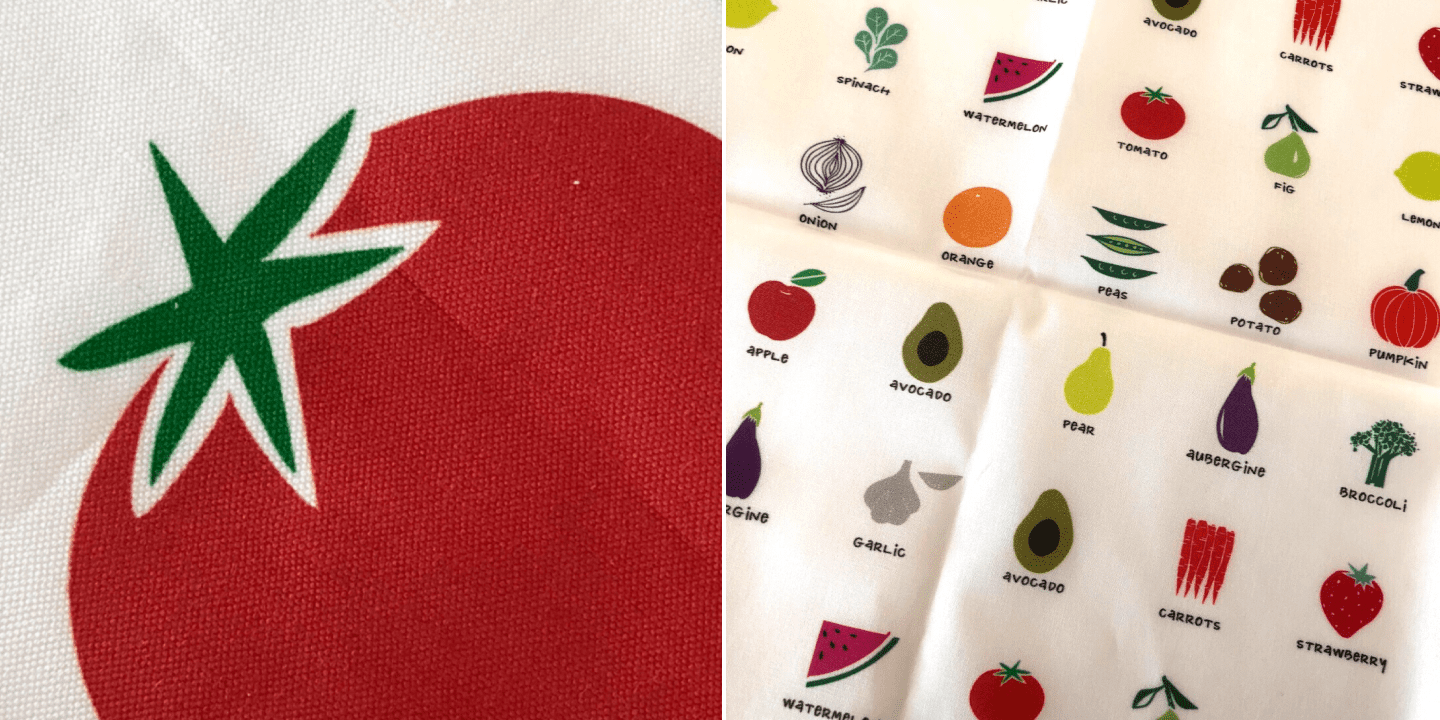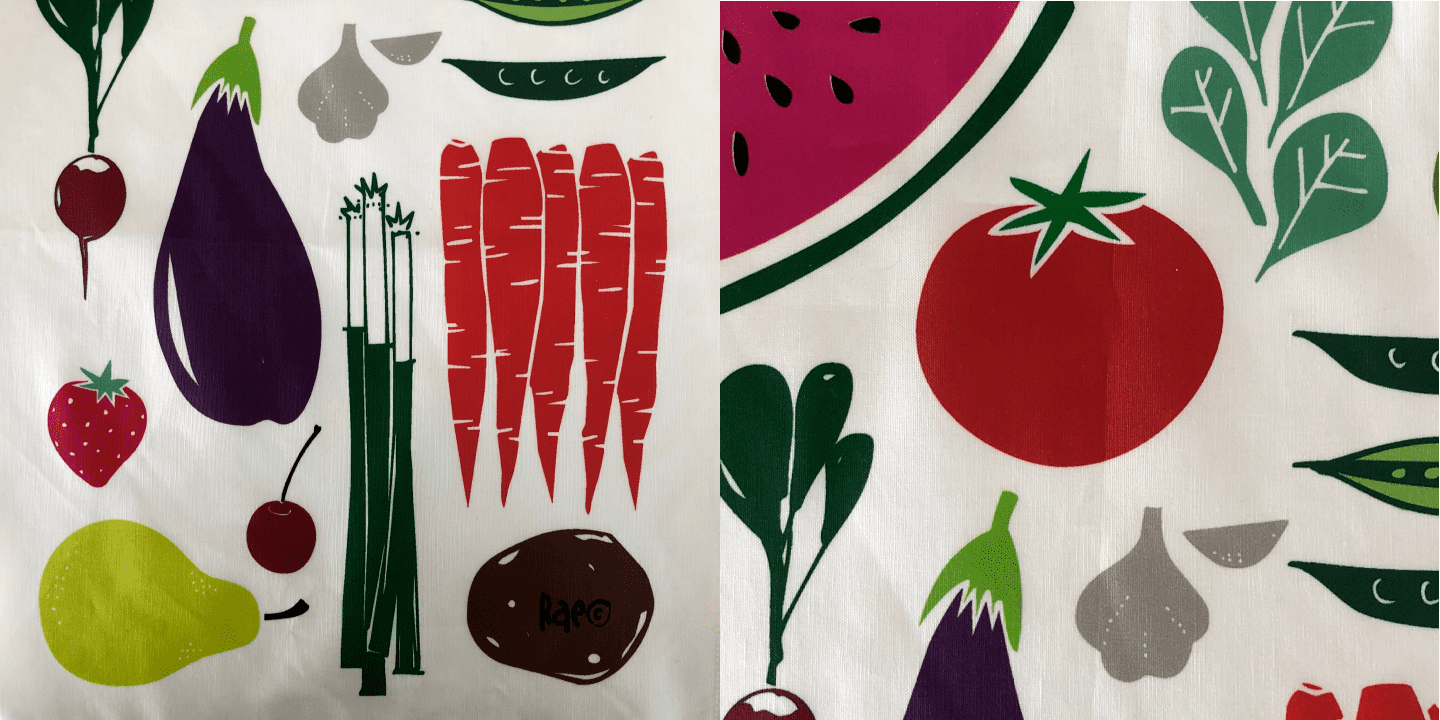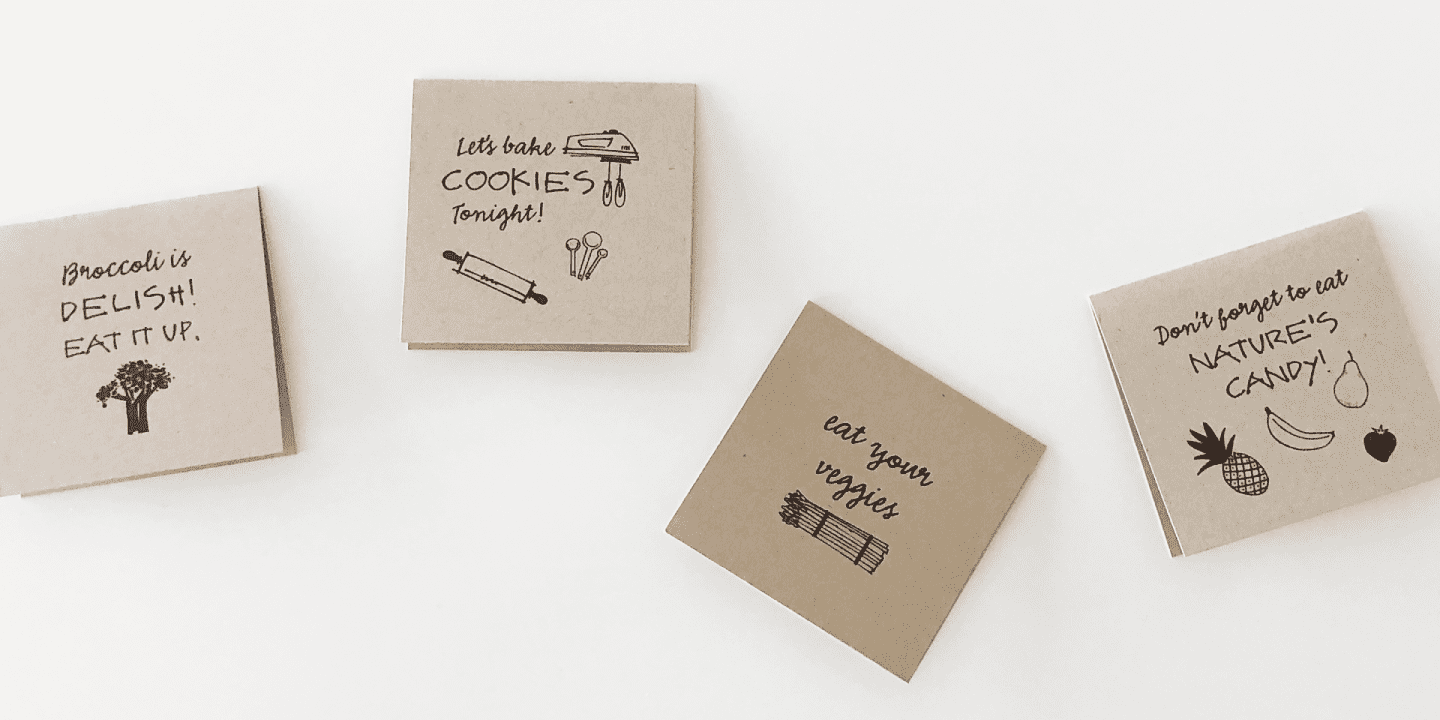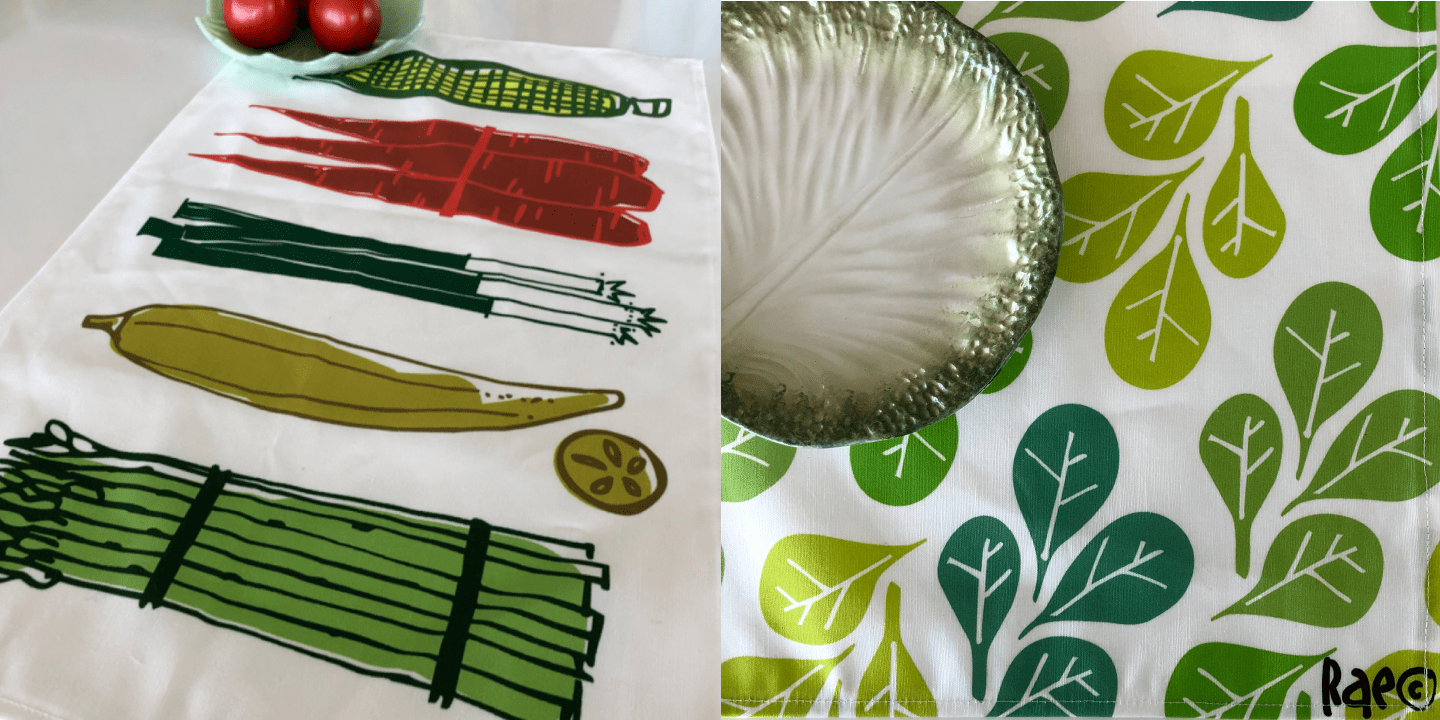
Fruit and Veggie Doodles (1 font)
Fruit and Veggie Doodles is a 33-picture clipart font.
Use them as dingbats or enlarge the small pictures and use them as clipart. Lots to choose from potatoes, tomatoes, avocado, eggplant, fig, watermelon, radish, peppers, broccoli, asparagus, corn on the cob, green onions, carrots, peas, lettuce, mushrooms, onion, olives, garlic, okra, beans, lemon, pear, pineapple, grapefruit or orange, pumpkin, apple, strawberry, grapes, cherry and banana. This is the companion font to Food Doodles Too. Also works nicely with Coffee & Tea Doodles. And if you need some fancy cakes check out Party Doodles. All in the same line drawing style to mix and match.